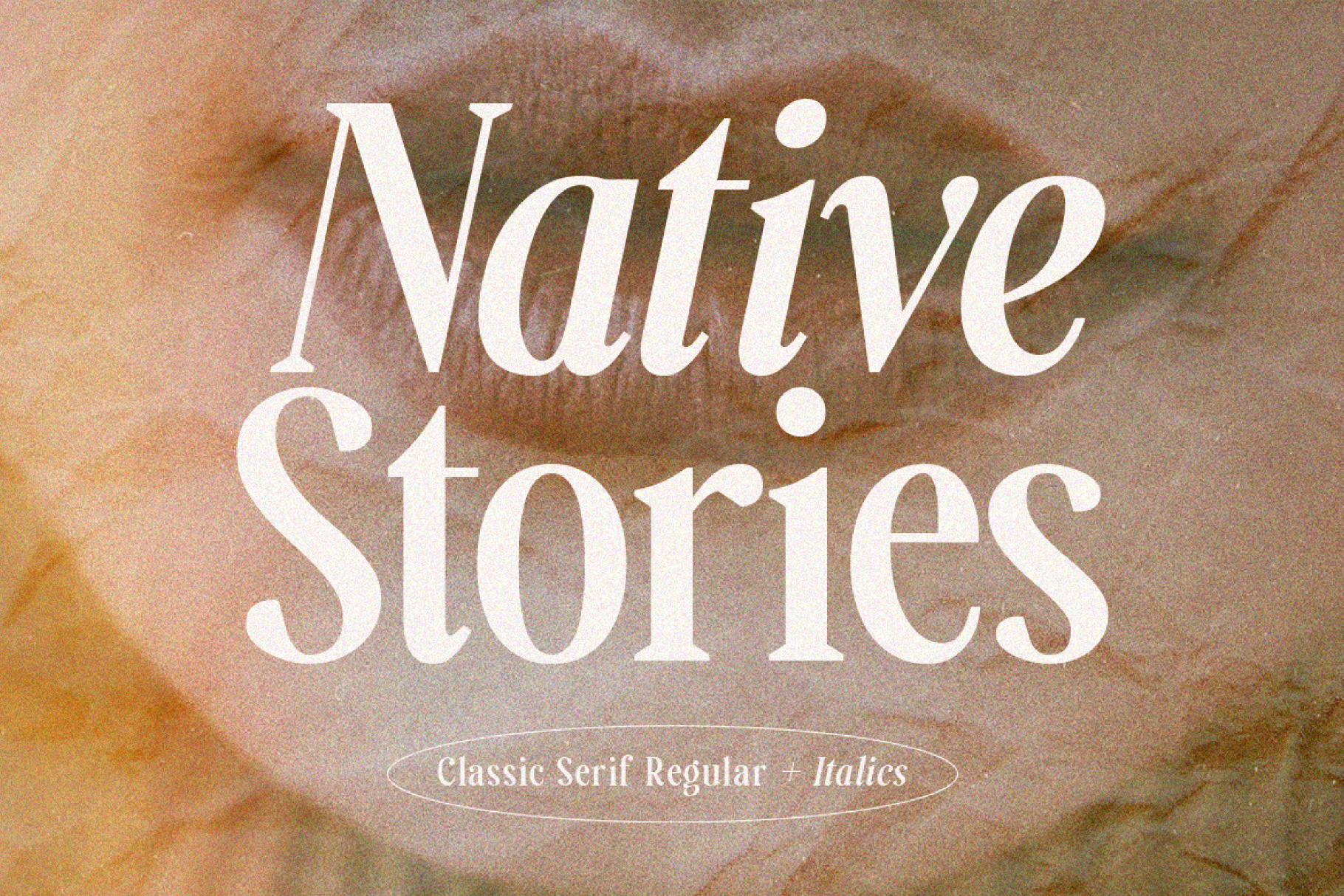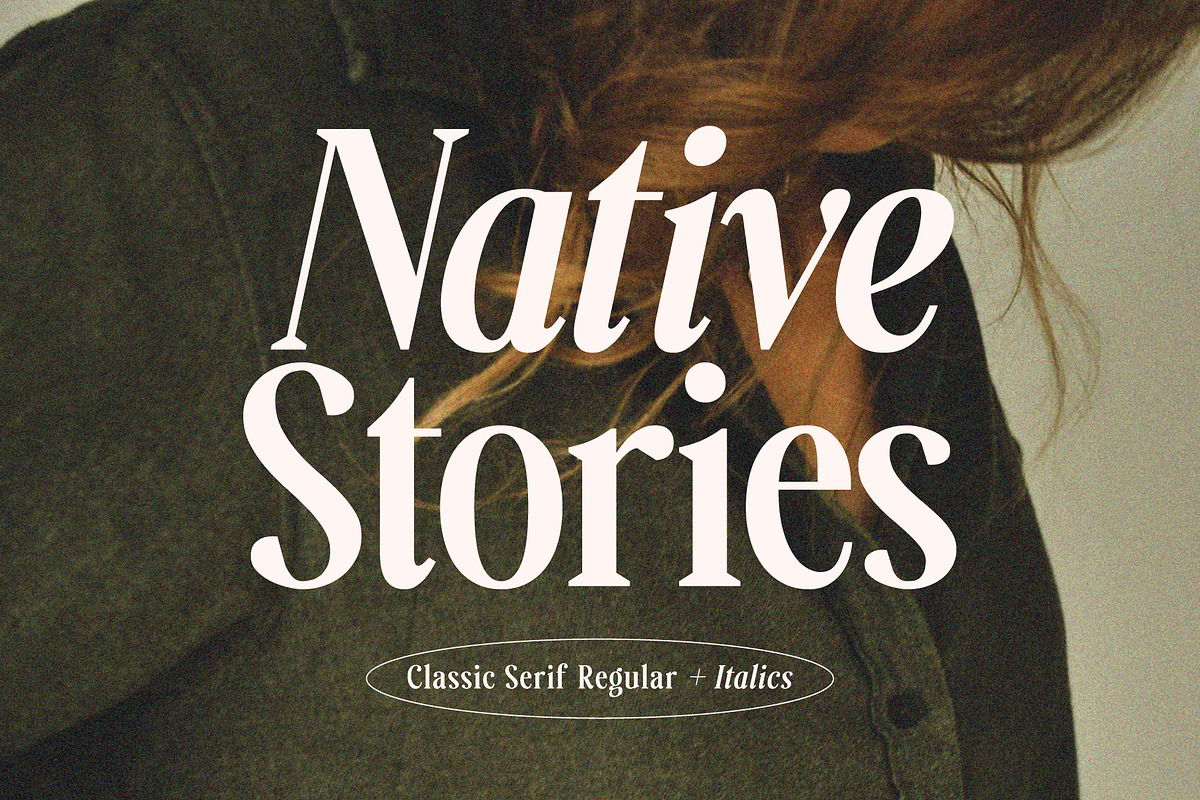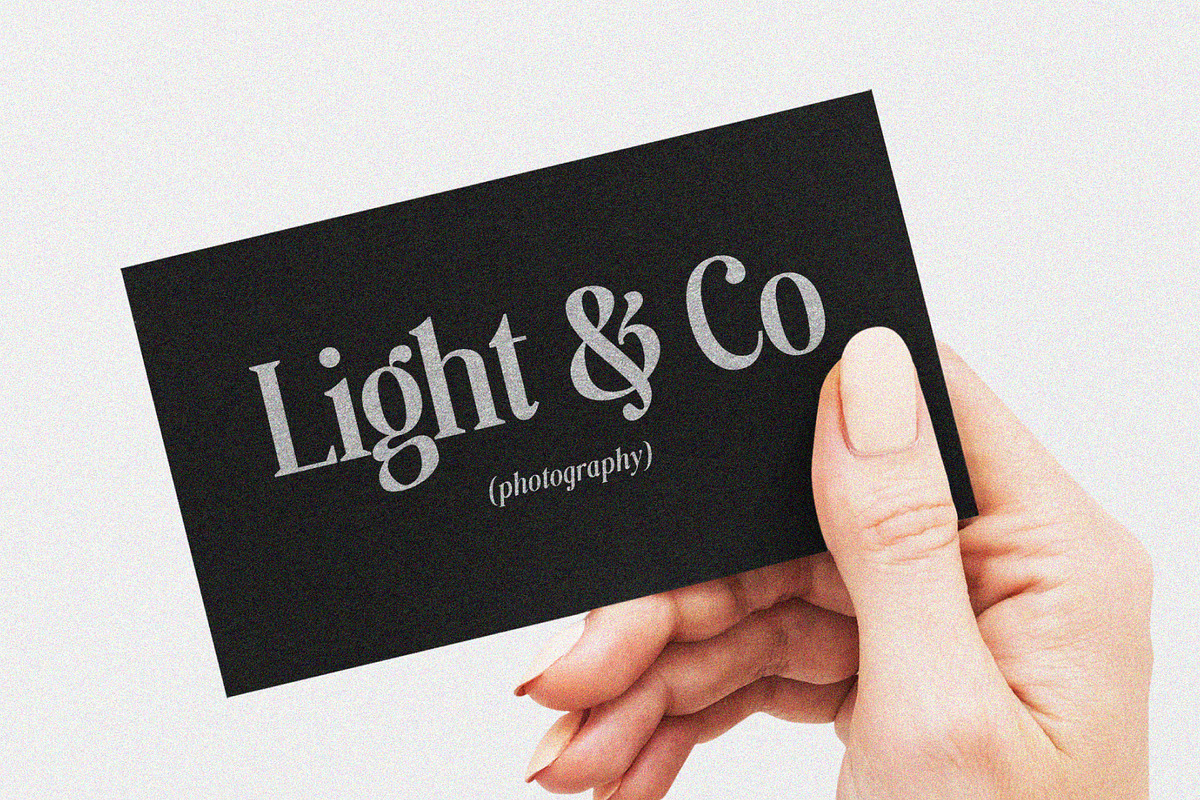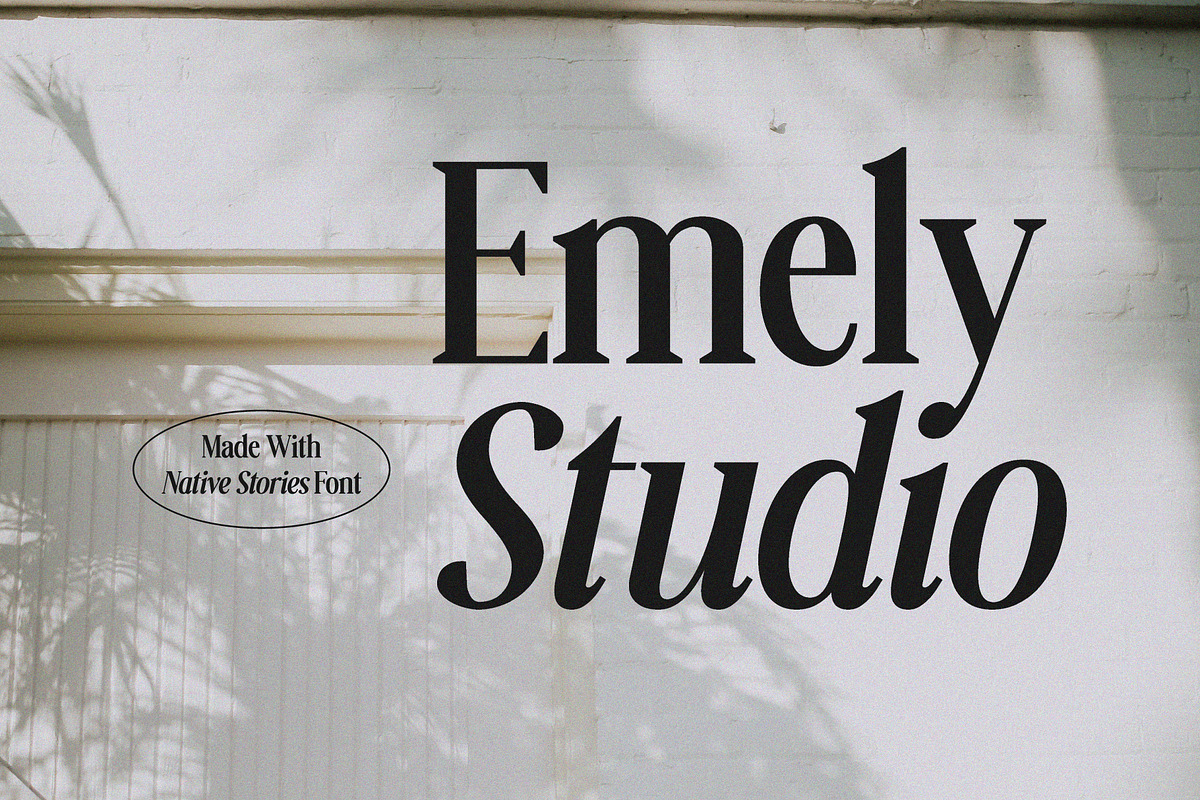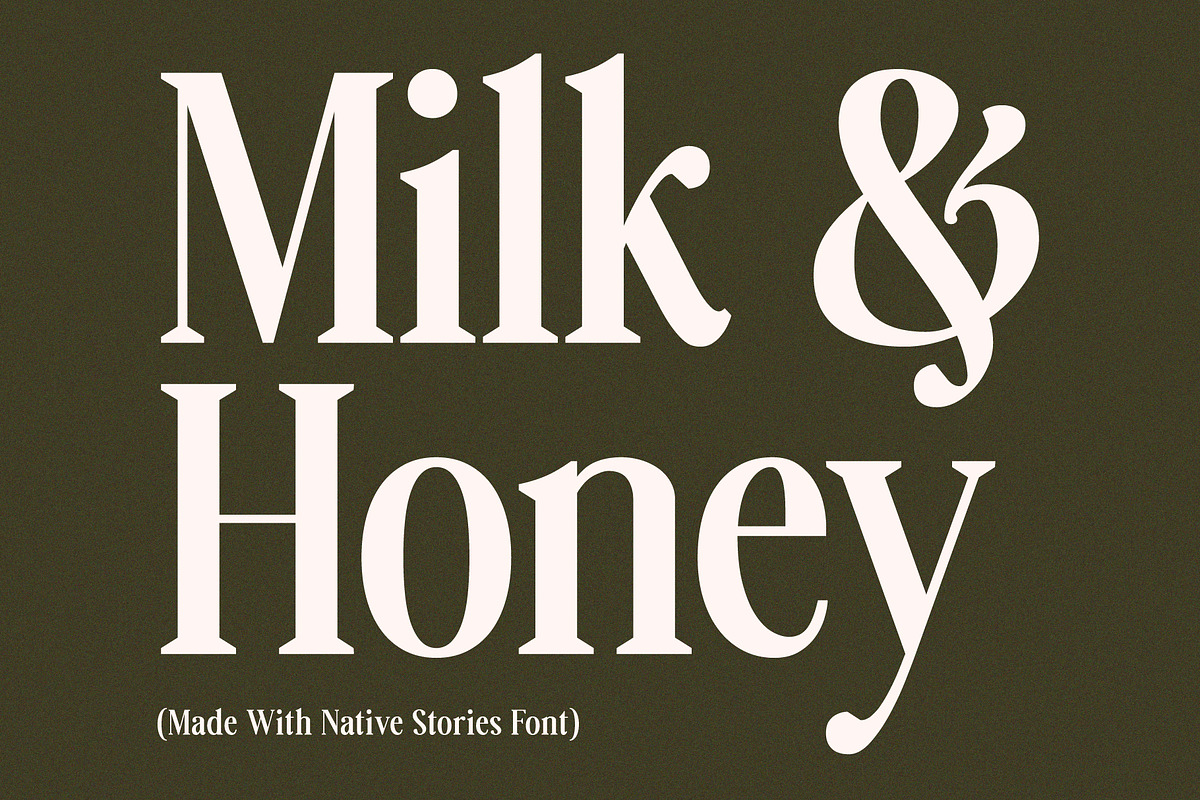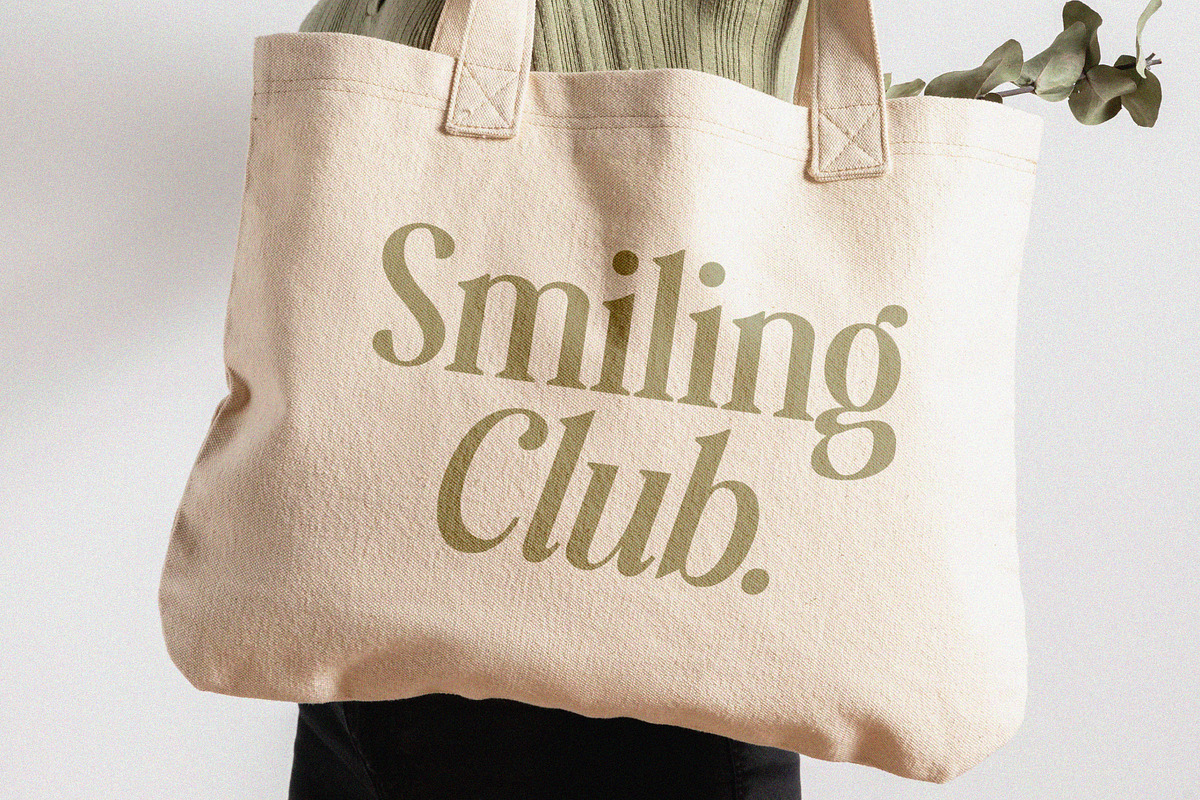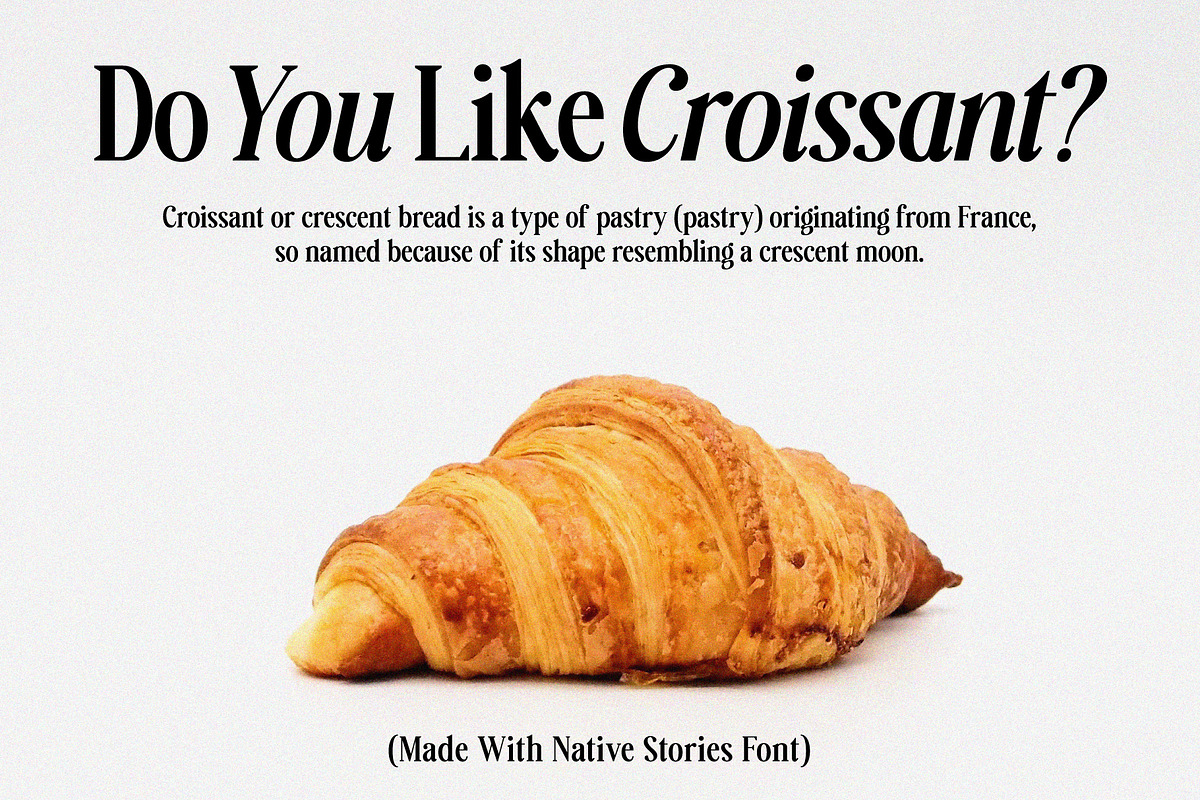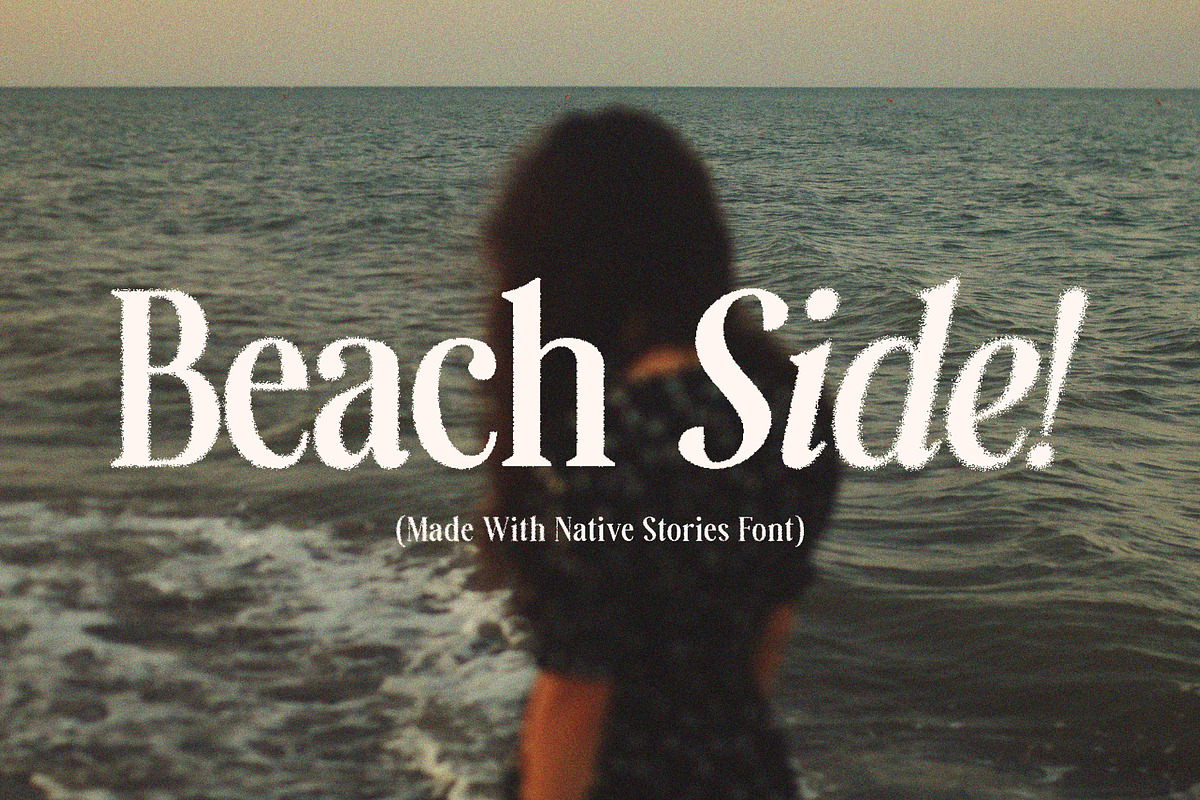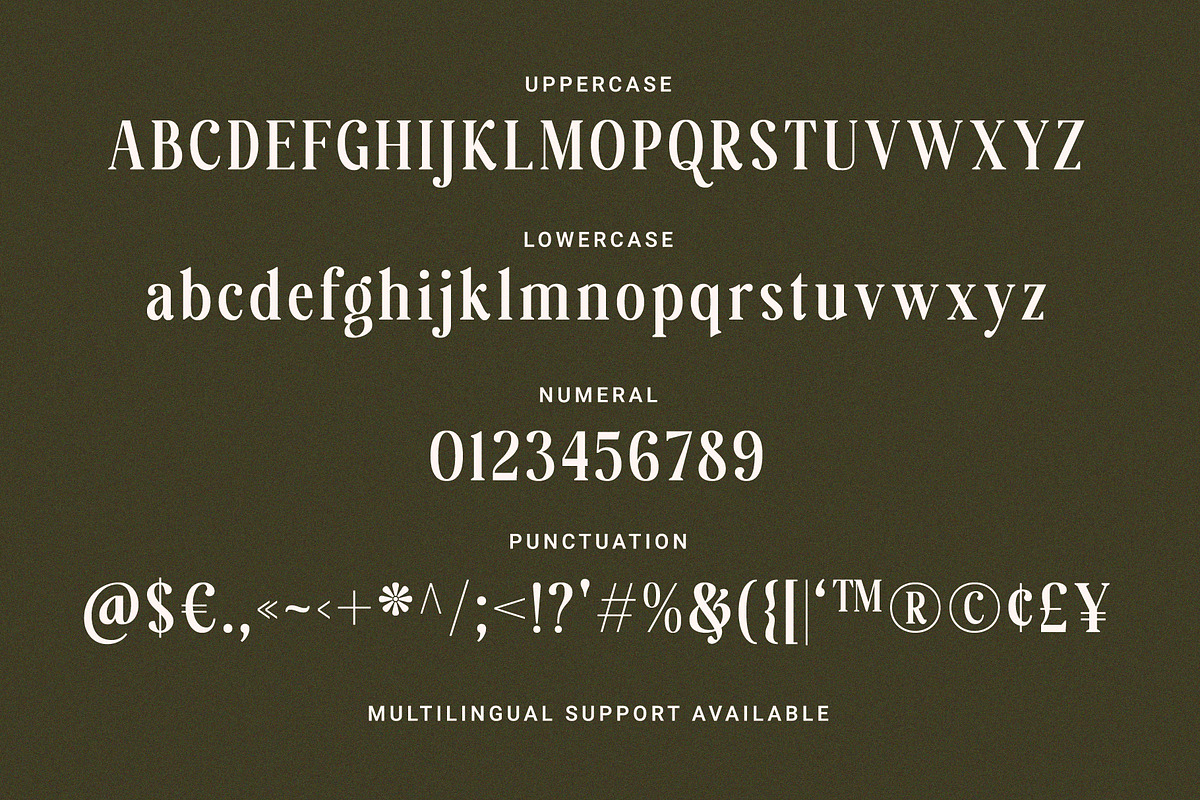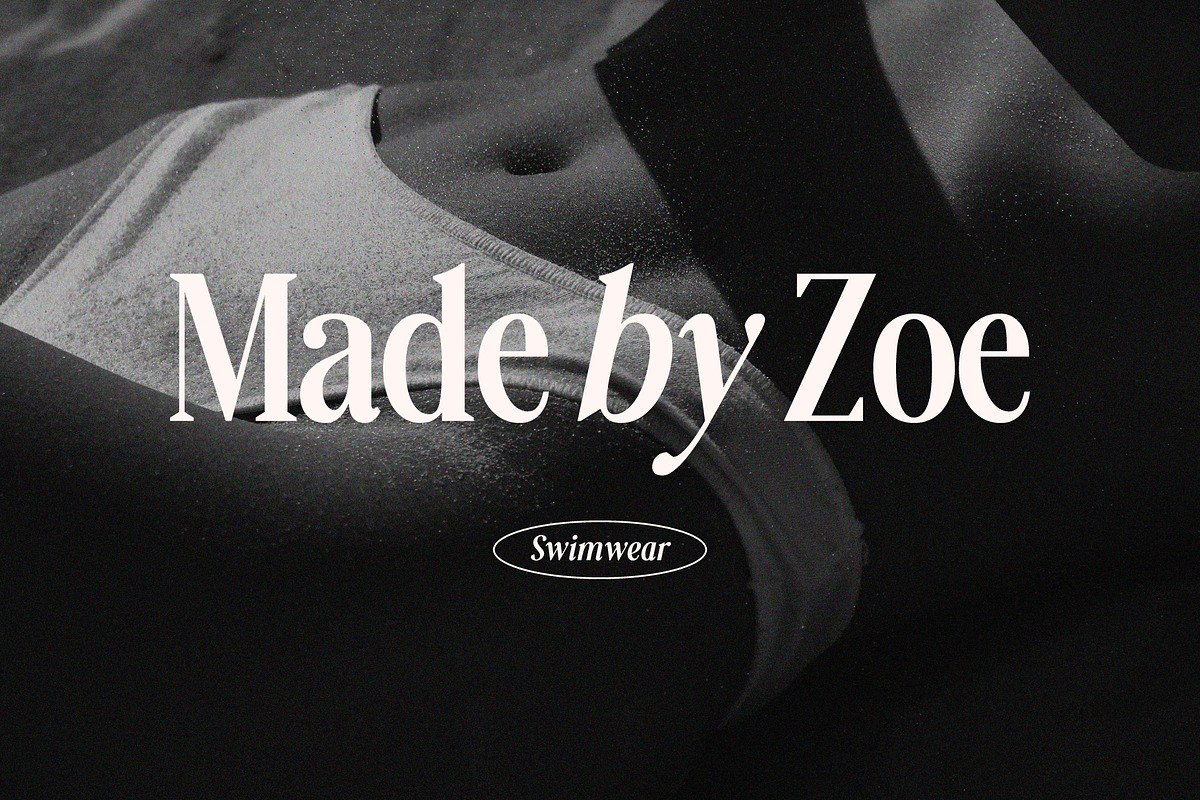
Native Stories - Classic Serif Font
A serif font with a stylish, classic feel is ready to work with your design projects. There are two styles, namely Regular and Italic. Perfect for applying to poster designs, branding, magazines, merchandise, logos and more.
- Features: Uppercase, Lowercase, Numeral, Punctuation & Multilingual.
- Multilingual contained: Afrikaans, Albanian, Asu, Basque, Bemba, Bena, Breton, Catalan, Chiga, Cornish, Danish, Dutch, English, Estonian, Filipino, Finnish, French, Friulian, Galician, German, Gusii, Indonesian, Irish, Italian, Kabuverdianu, Kalenjin, Kinyarwanda, Luo, Luxembourgish, Luyia, Machame, Makhuwa-Meetto, Makonde, Malagasy, Manx, Morisyen, North Ndebele, Norwegian Bokmål, Norwegian Nynorsk, Nyankole, Oromo, Portuguese, Quechua, Romansh, Rombo, Rundi, Rwa, Samburu, Sango, Sangu, Scottish Gaelic, Sena, Shambala, Shona, Soga, Somali, Spanish, Swahili, Swedish, Swiss German, Taita, Teso, Uzbek (Latin), Volapük, Vunjo, Zulu.